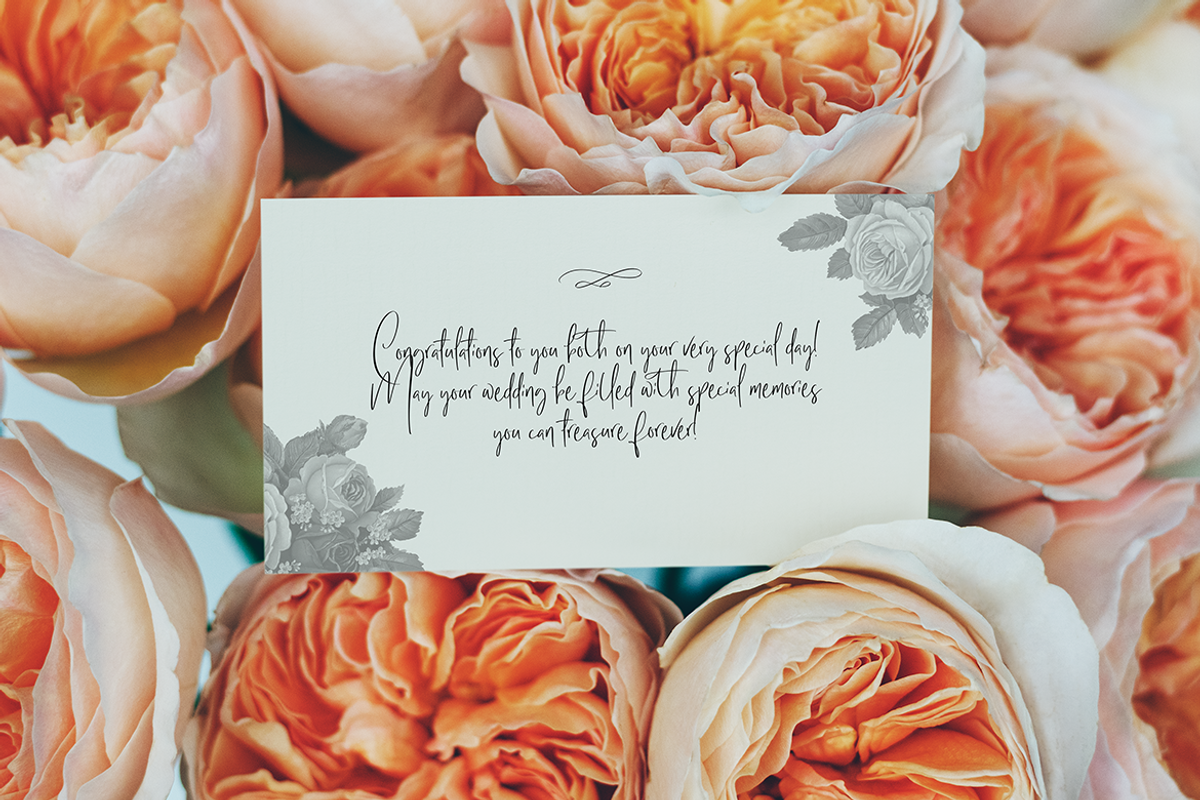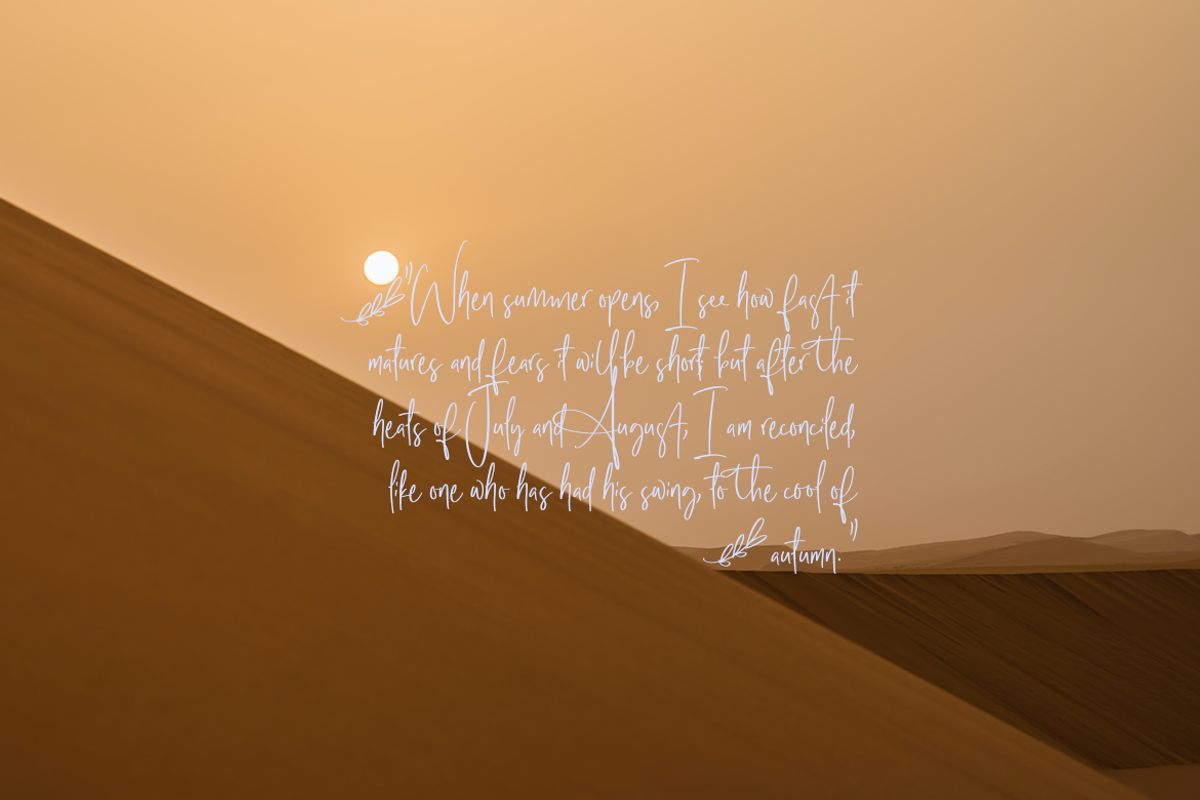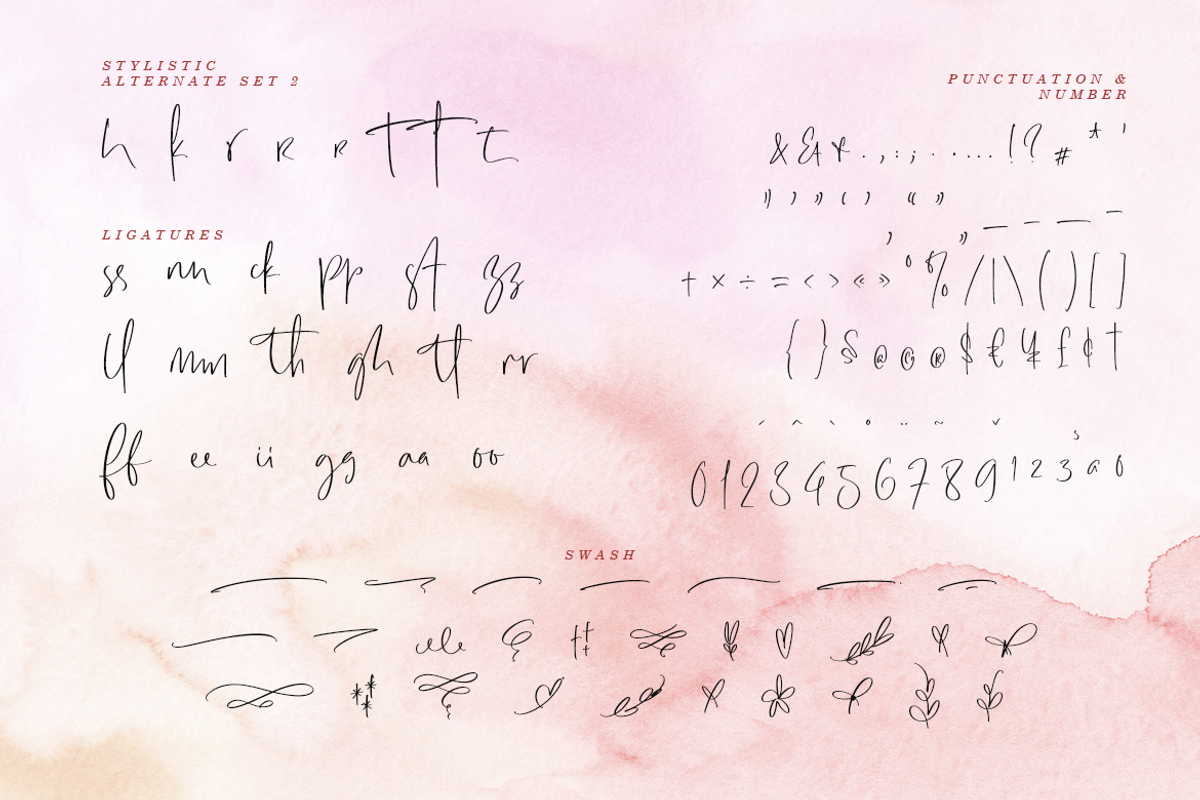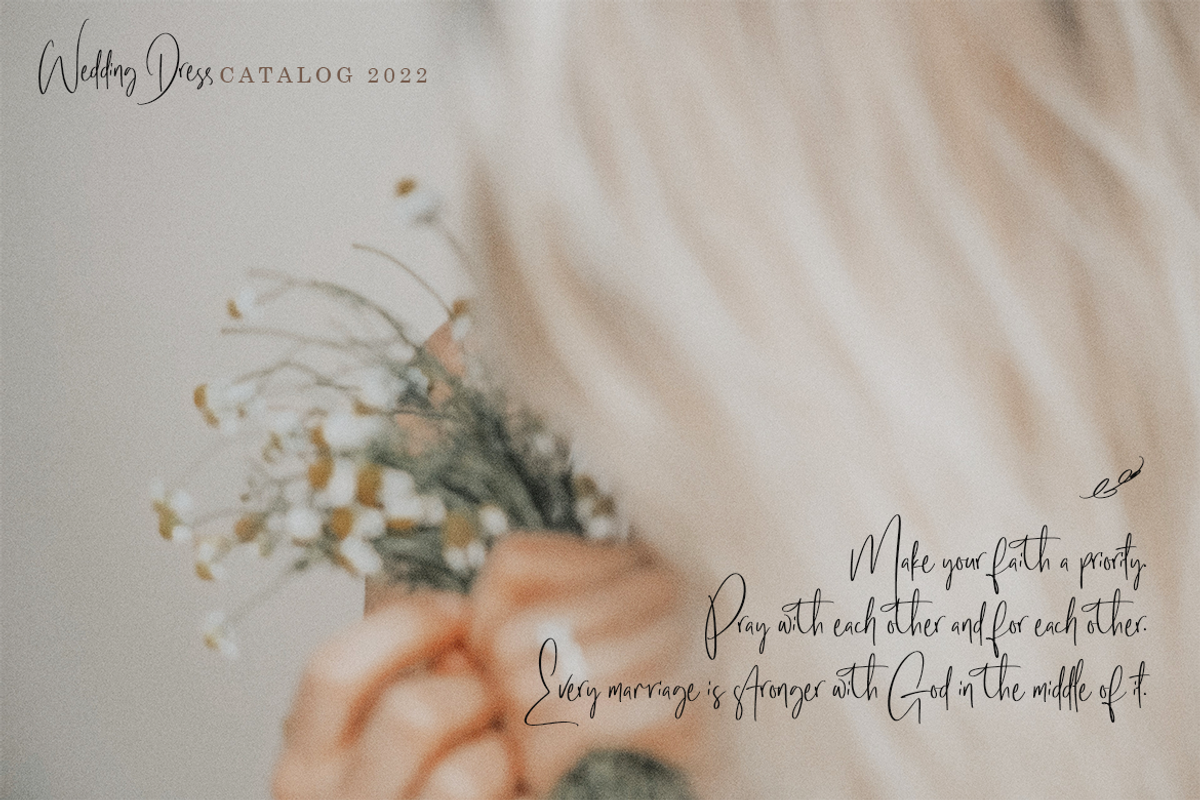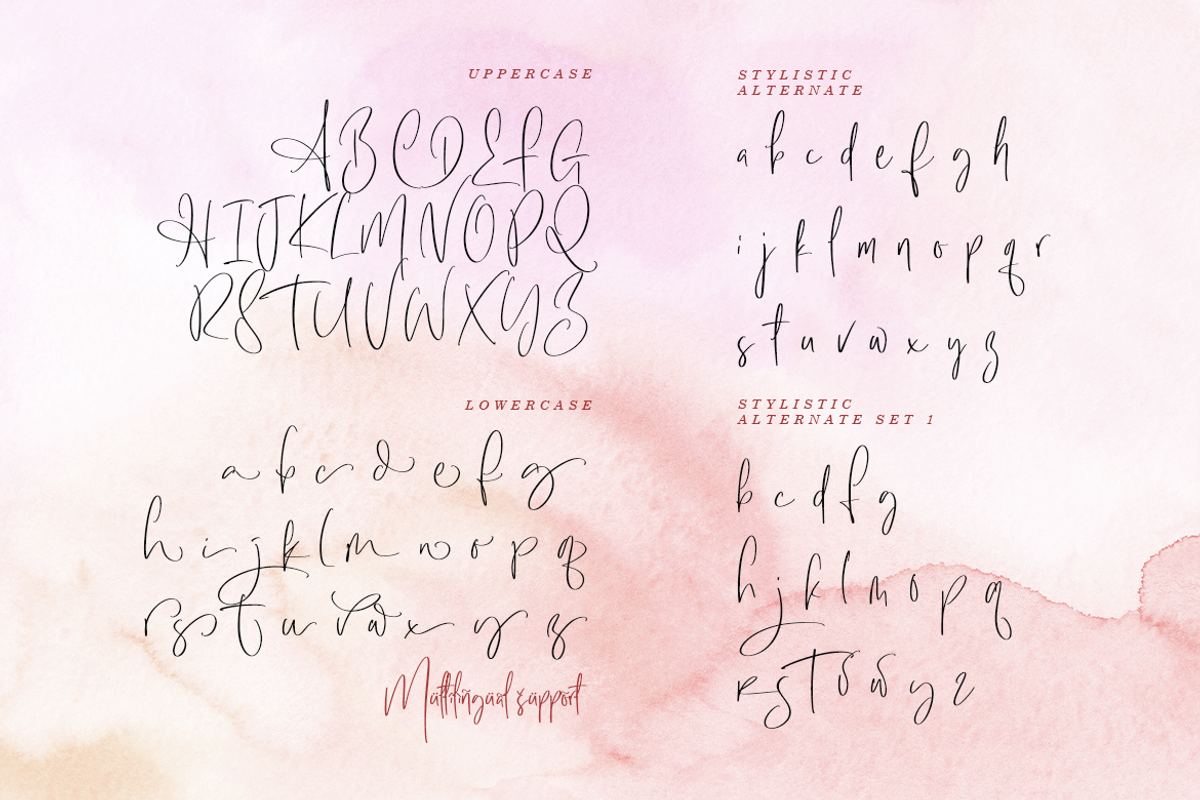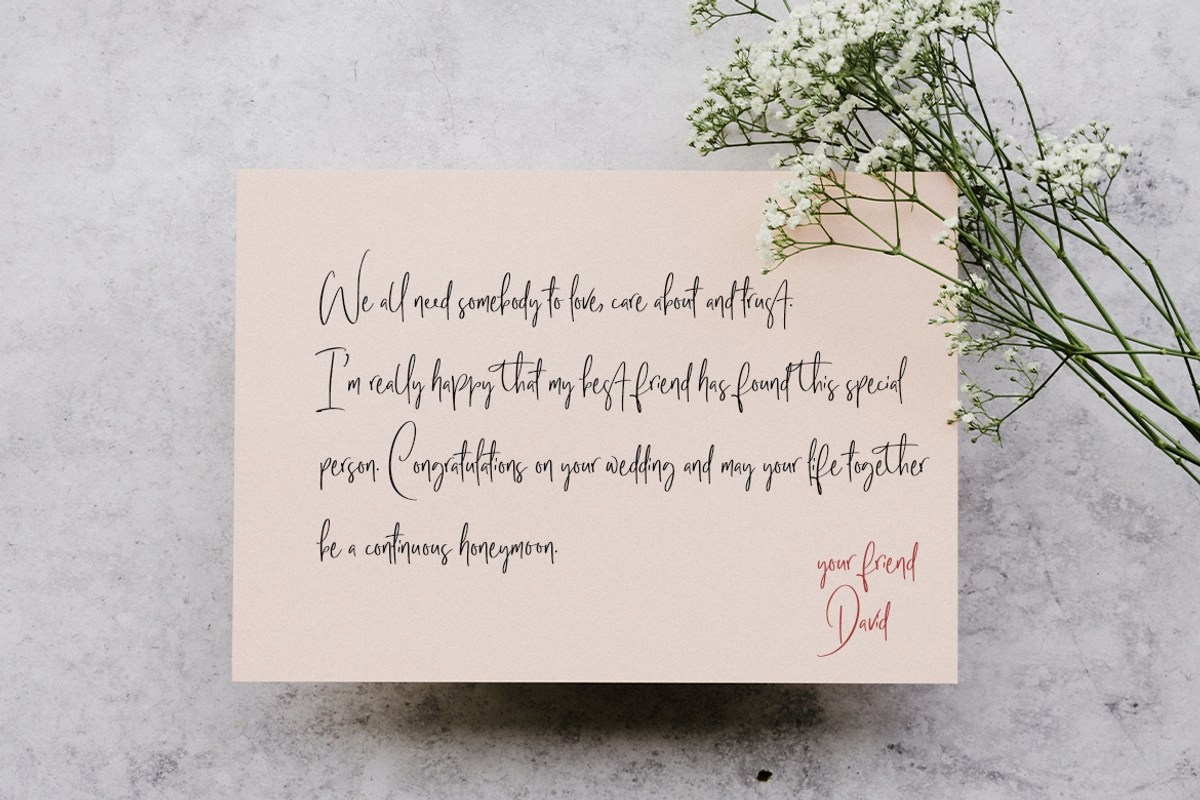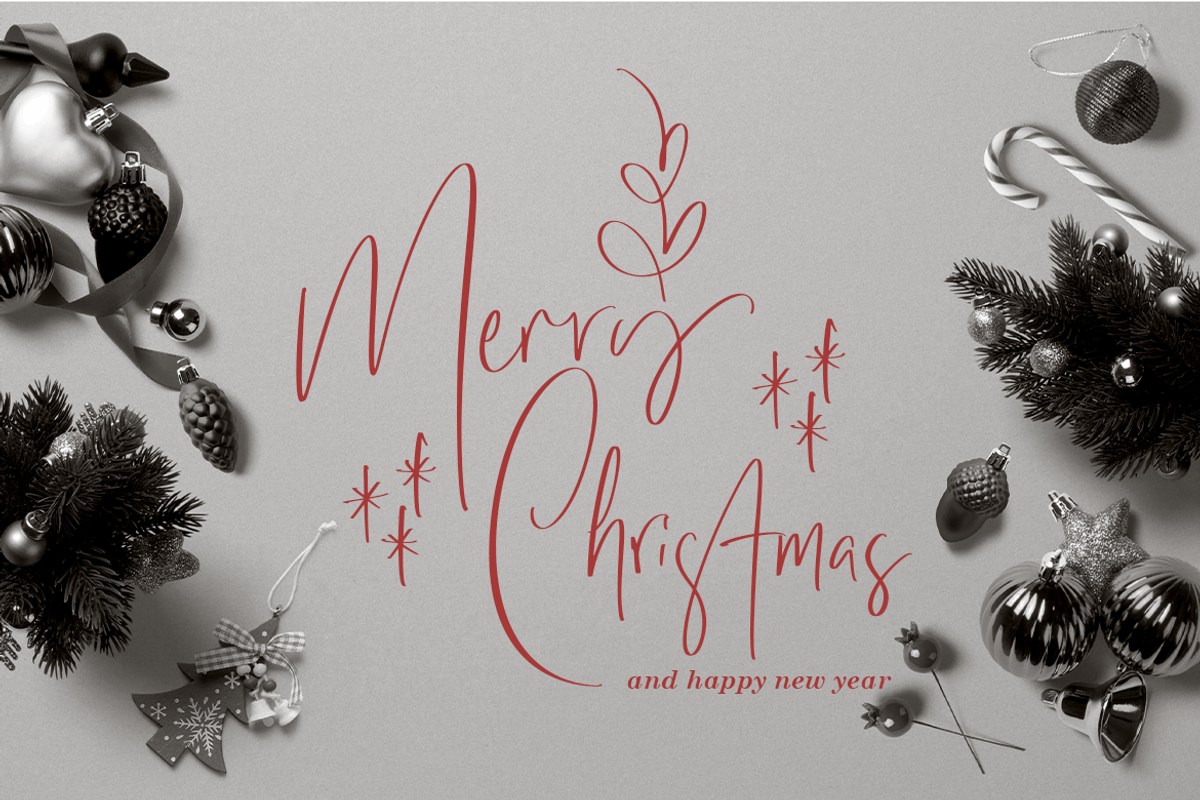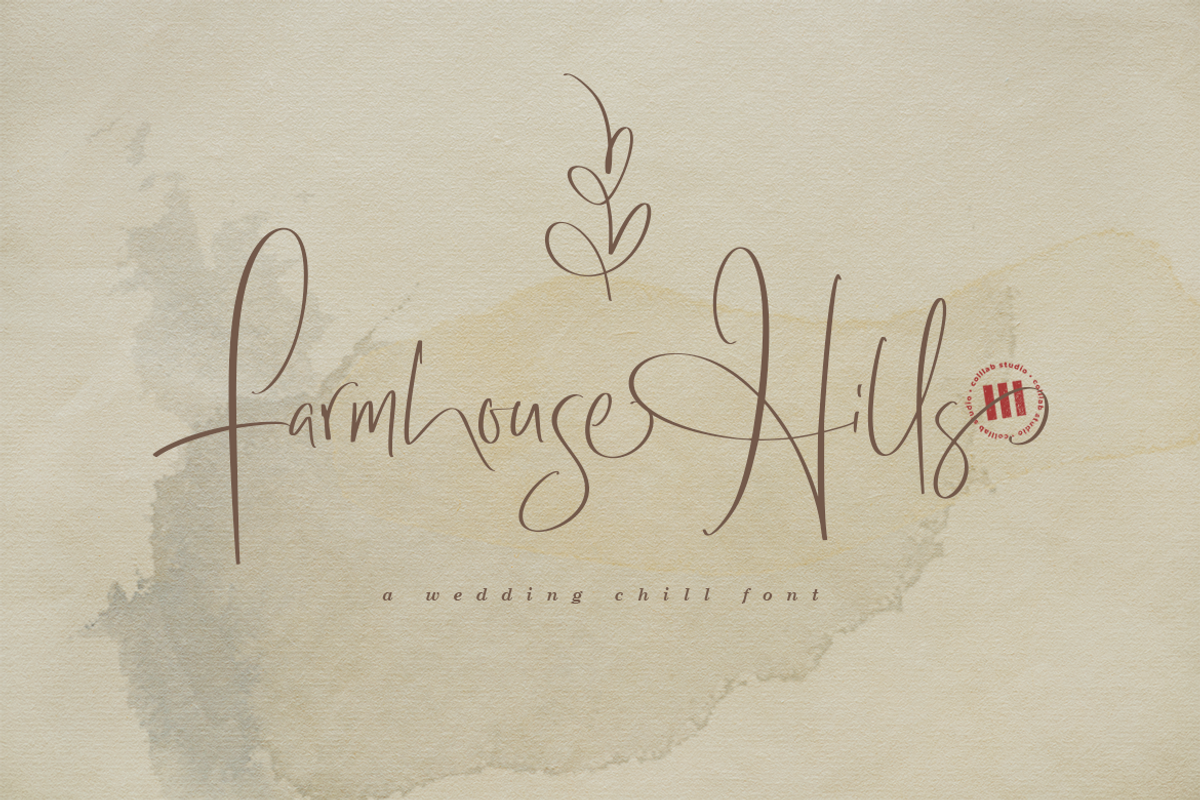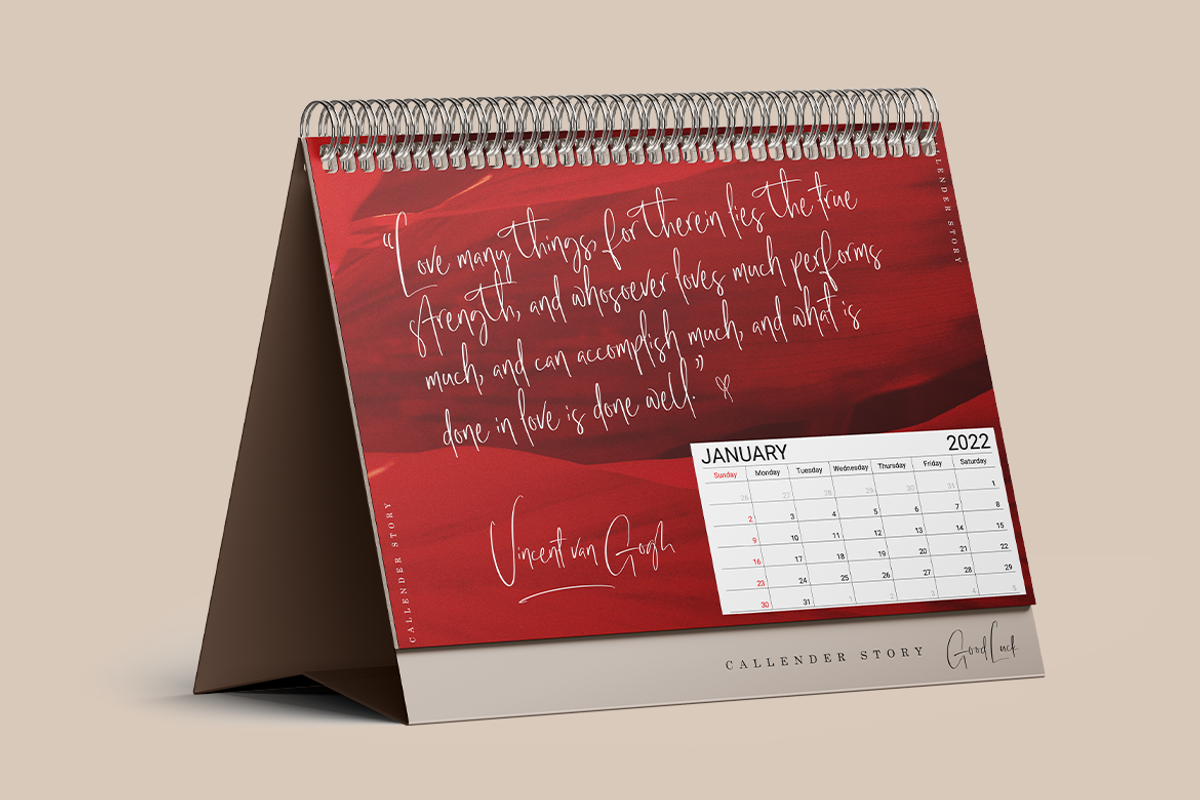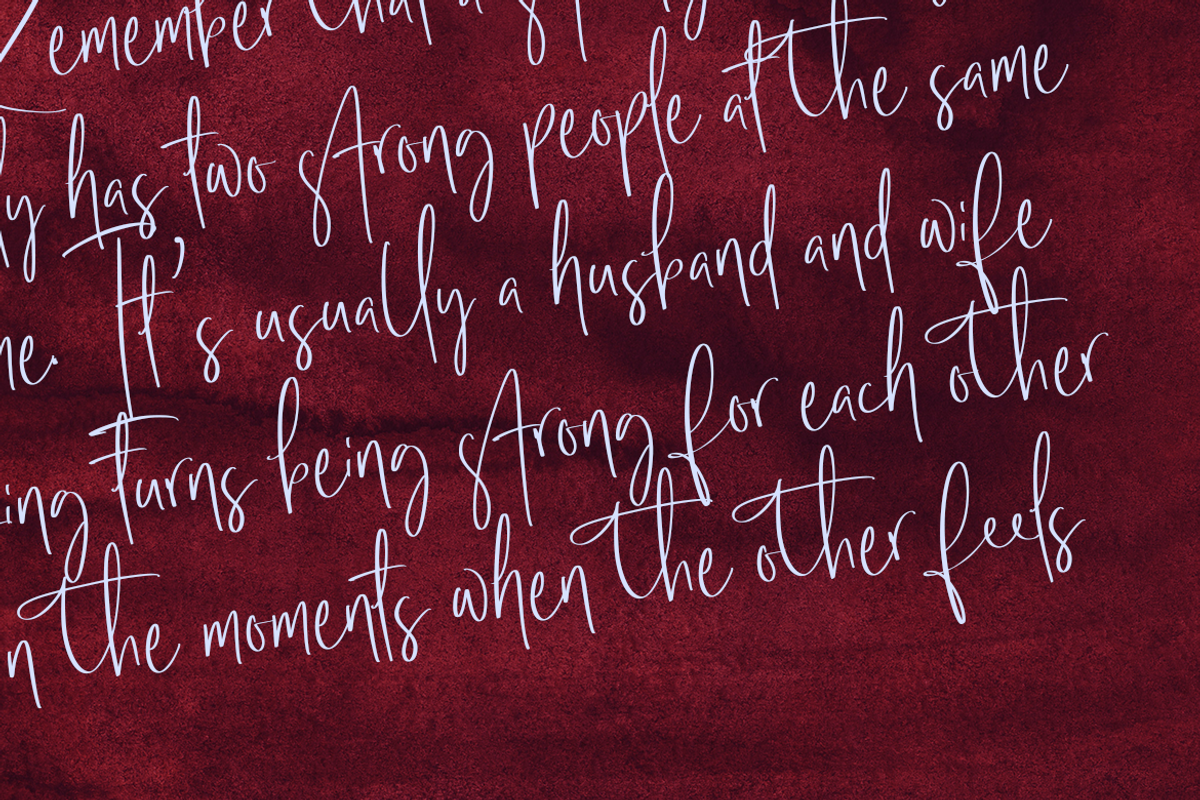
Farmhouse Hills | An Organic Font
Standout from the ordinary with Farmhouse Hill. It is a loving and unforgettable wedding invitation that will make your wedding a success! Farmhouse hill is a unique wedding font that is comes with tins of stylistic alternates.
It has a very soft and classy style. Each character has been carefully handcrafted to look rustic, trendy and like calligraphy.
Notice how each letter looks so incredible and different from one another? It’s stunning! Just imagine how it will fit with the rest of your wedding design!
- 40+ Ligatures and swashes
- Multilanguage Support ( 64 Languages )